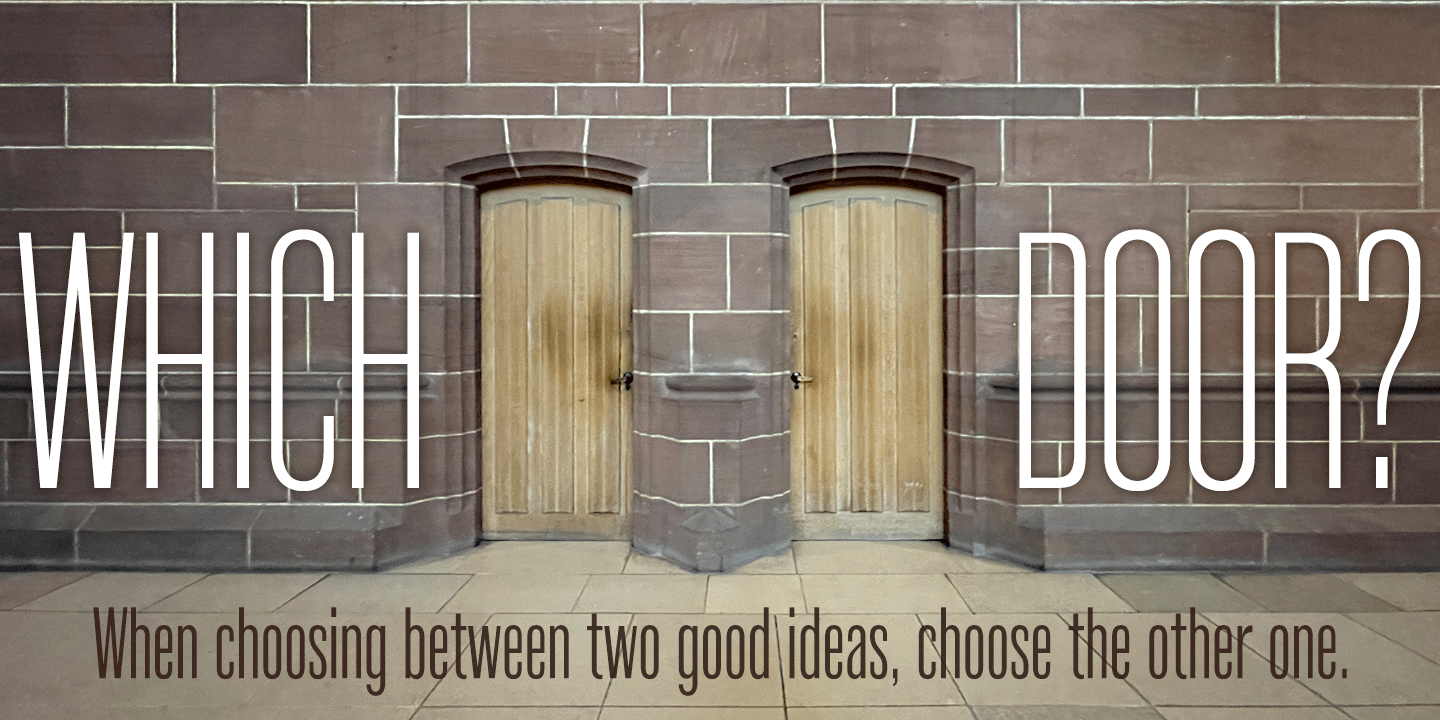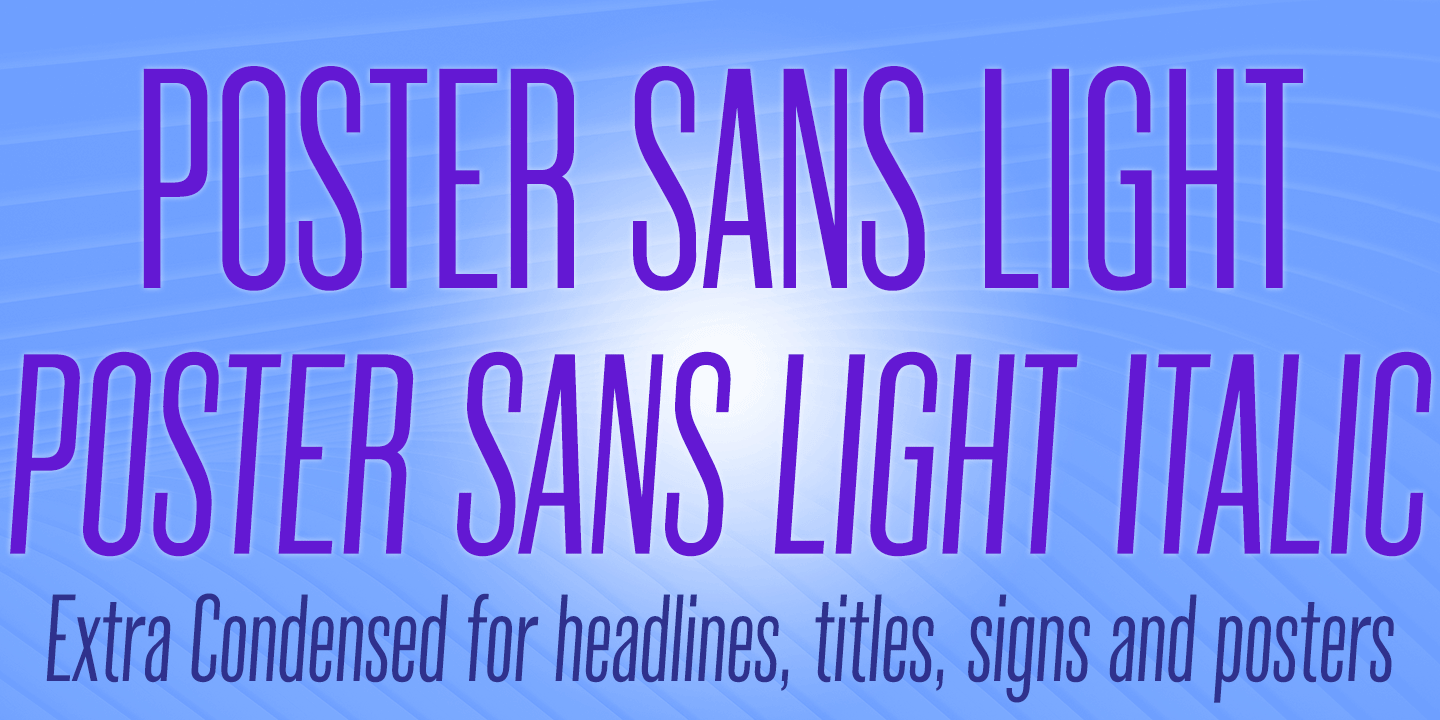
Poster Sans Light
About Poster Sans Light
Loosely based on Ludlow 6-EC, the POSTER SANS family is perfect for headlines, titles, signs, and posters, and has the enduring functionality of vintage condensed grotesques, timeless and trustworthy. The version 6 fonts feature completely redrawn character…